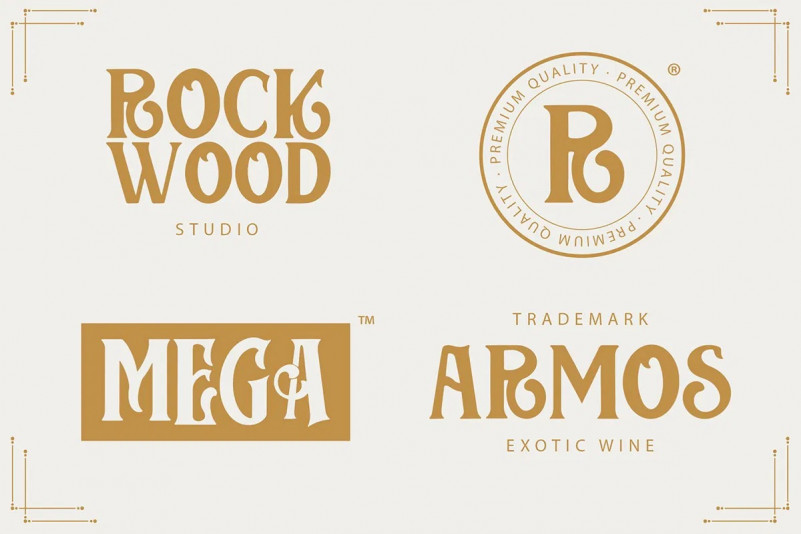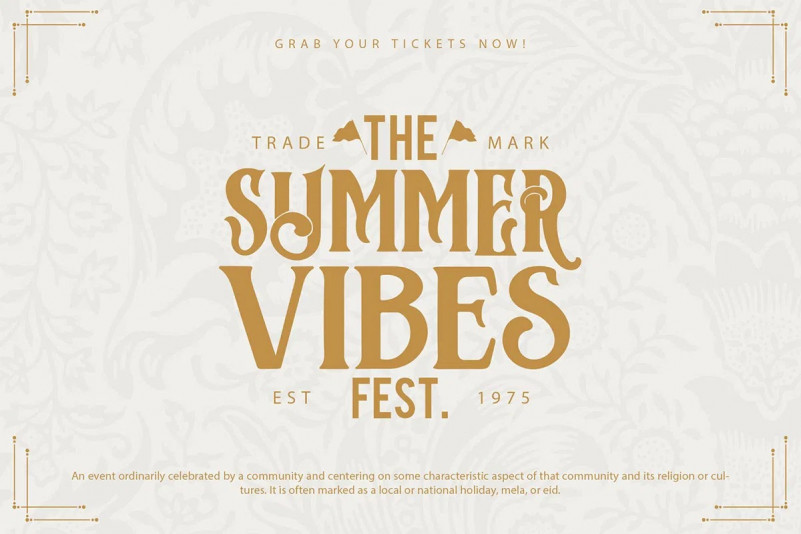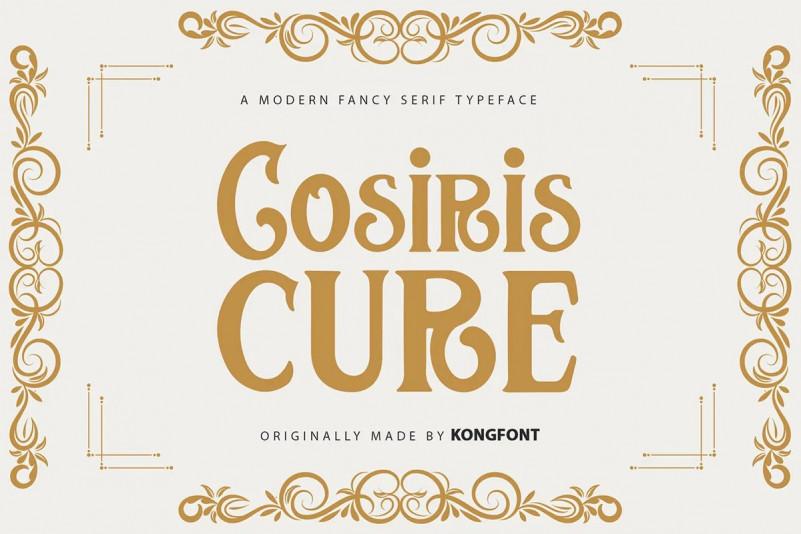
Cosiris Cure Display Font
This is a harmonized retro font. Designed carefully with unique swash, ligature and extra ornament. Cosiris Cure font is perfect for your up coming projects. Such as luxury logo branding, editorial design, stationery design, Elegant Modern Fashion, Salon Beauty, feminine advertising design, blog / website design, card invitation, art quote, home decor, book/cover title, special events ( wedding, birthday, etc ), and any more.